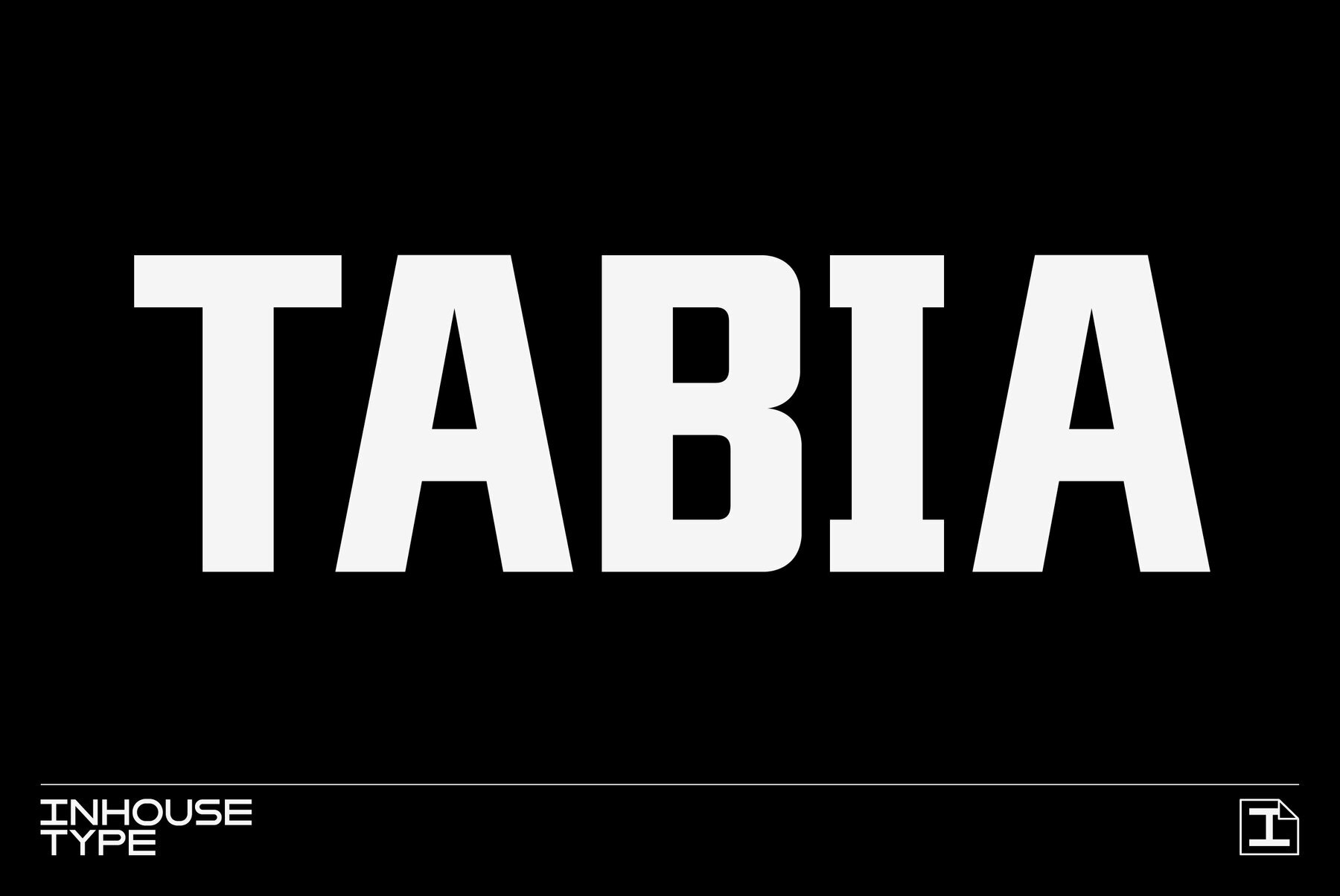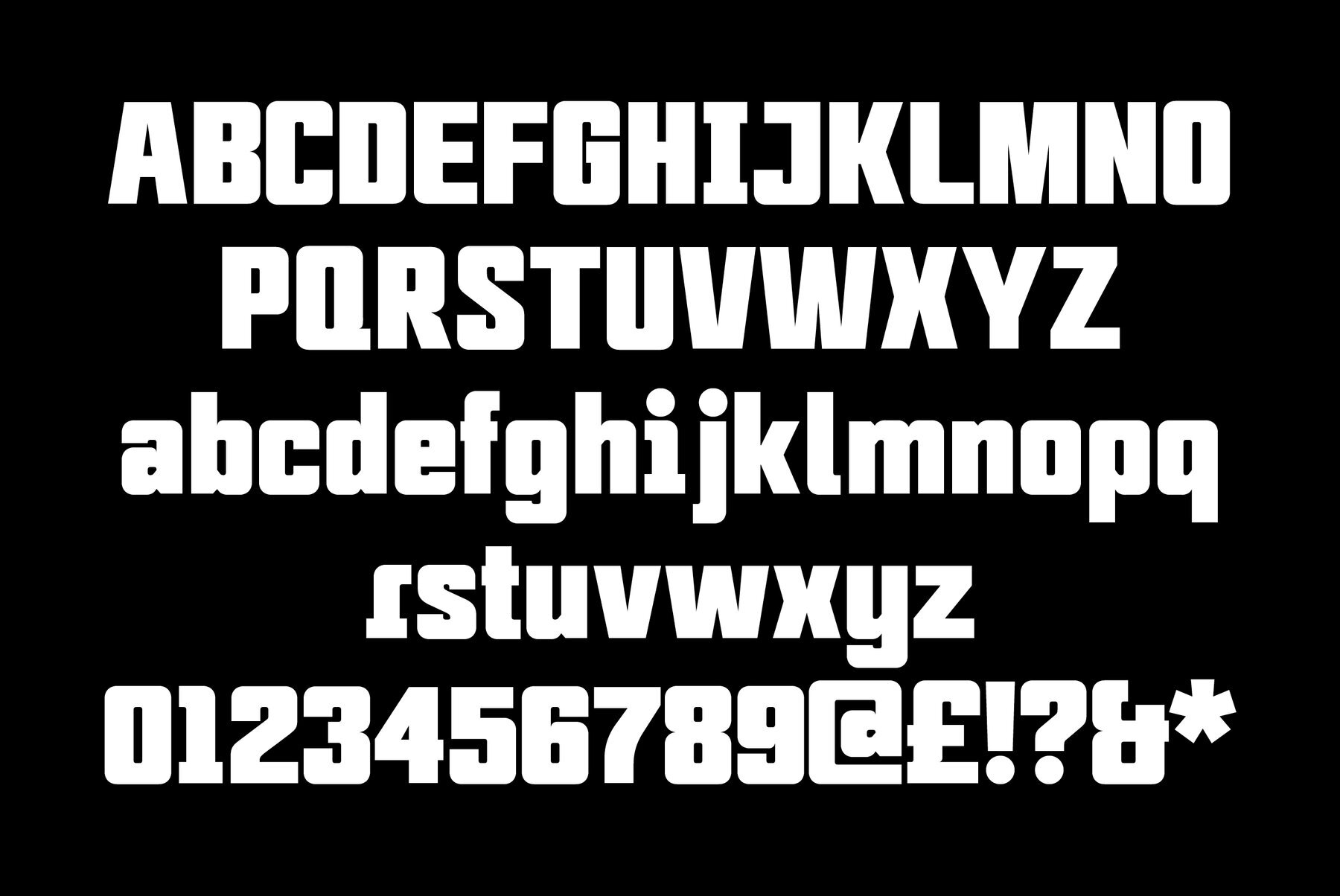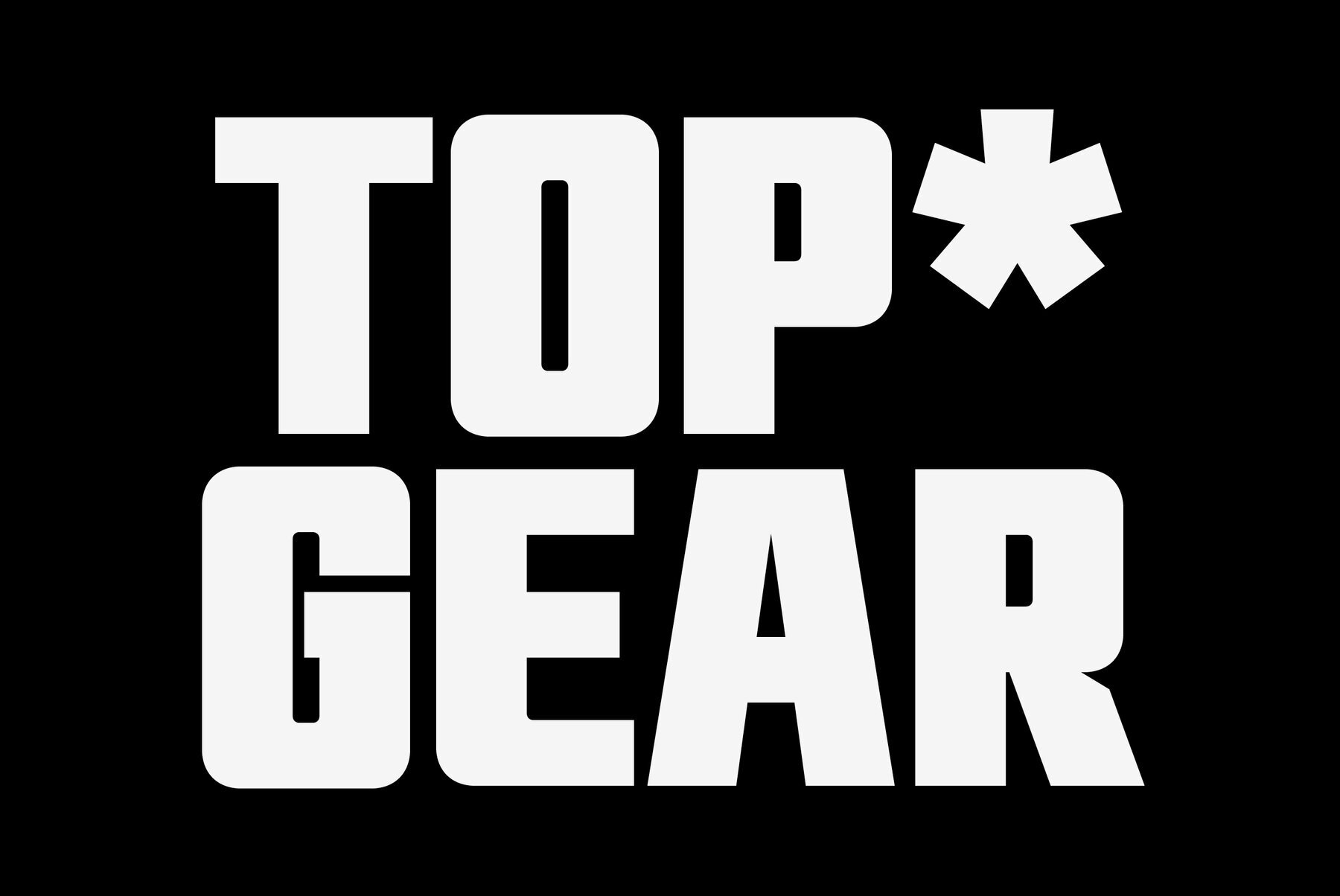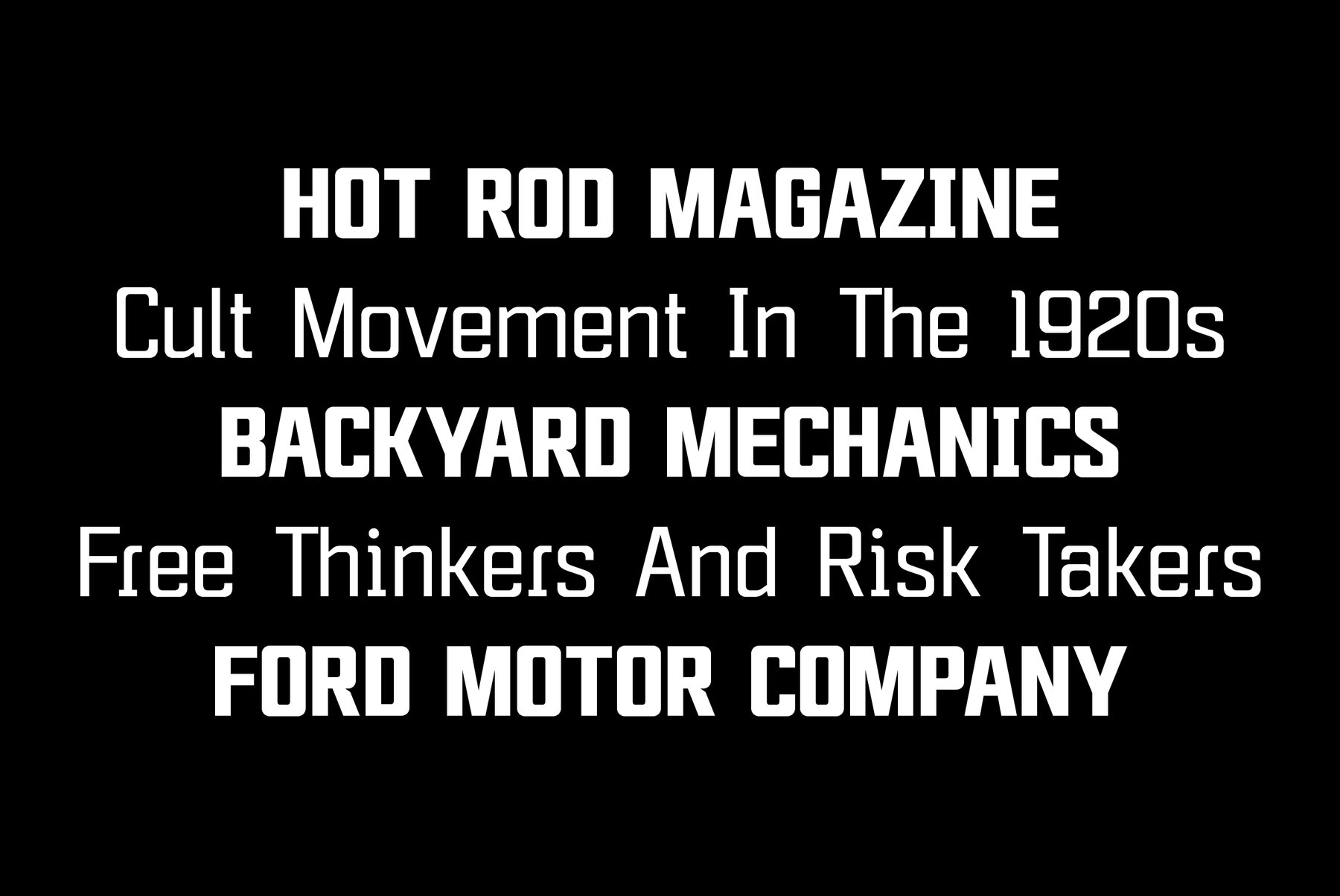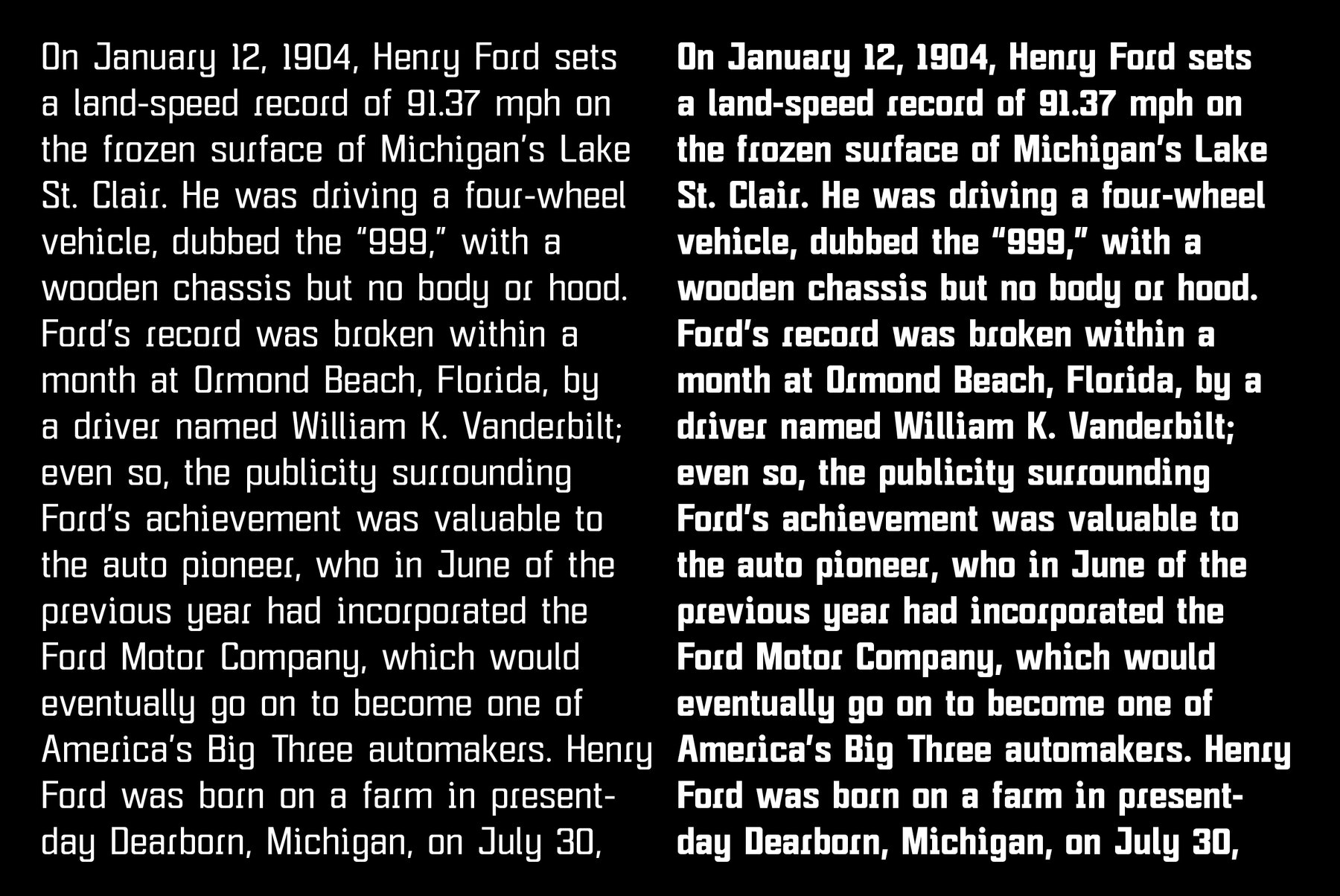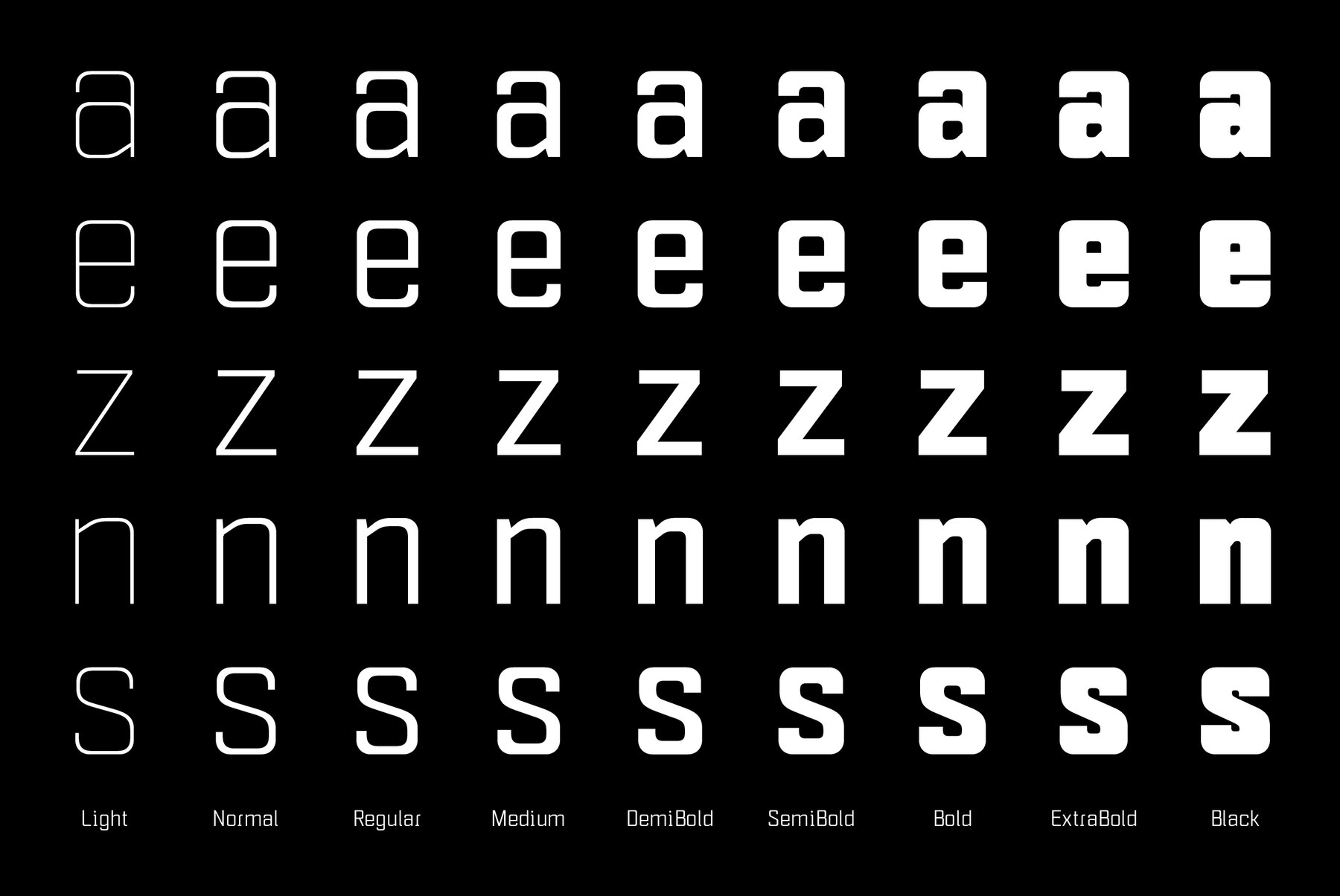
Tabia Font
Tabia is a geometric sans serif typeface. The font was inspired by the work and principles of the iconic german industrial designer Dieter Rams, who is closely associated with the consumer product company Braun and the Functionalist school of industrial design. Tabia features a number of alternative characters and ligatures. It has a strong technical appearance. Details include 9 weights, 426 characters and OpenType features.